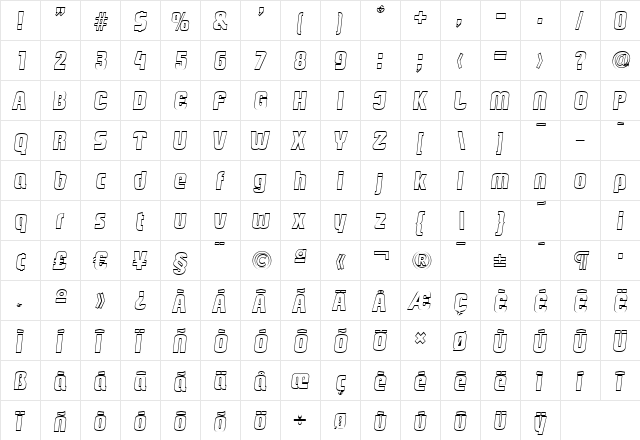
MaxBeckerOutline-ExtraBold Italic Font Preview
Design Context for MaxBeckerOutline-ExtraBold Typeface
MaxBeckerOutline-ExtraBold brings ornamental detail and strong personality to headlines and identities, where visual impact matters more than quiet functionality. The dynamic lean of this cut emphasises speed and emphasis in any layout. Its bold stroke weight gives it real presence on the page.
Font Pairing: Pair with a clean neutral sans-serif for body copy to let MaxBeckerOutline-ExtraBold's character lead without overwhelming the composition.
Pro Tip: Use MaxBeckerOutline-ExtraBold exclusively at display sizes — it was designed to be seen, not read at length. Let a neutral companion handle body copy.